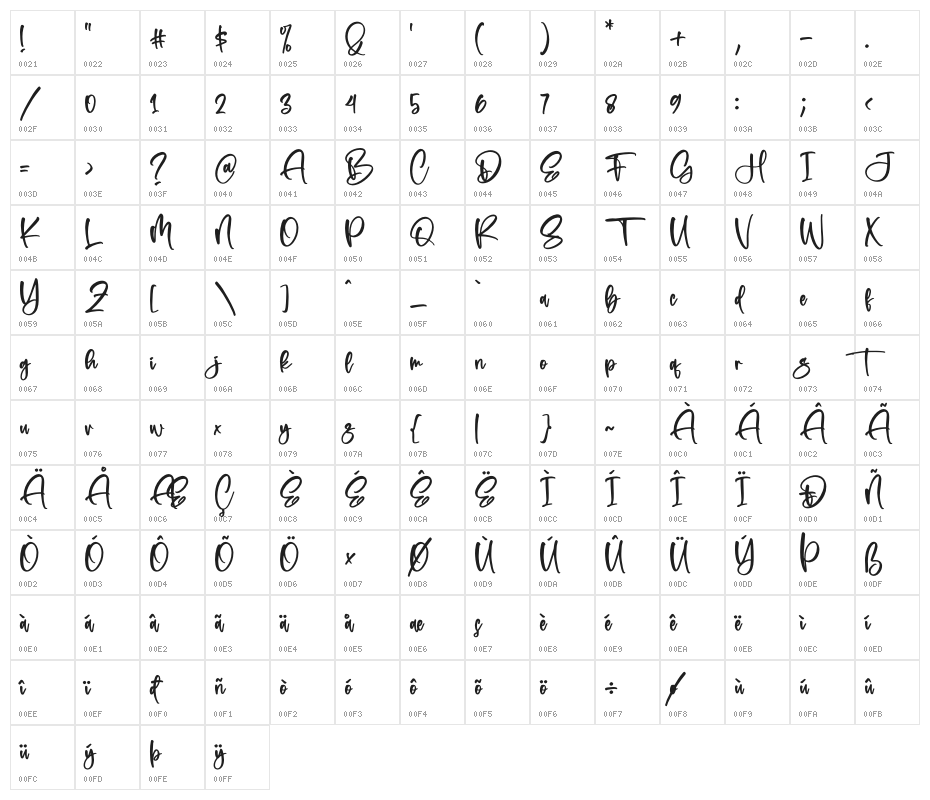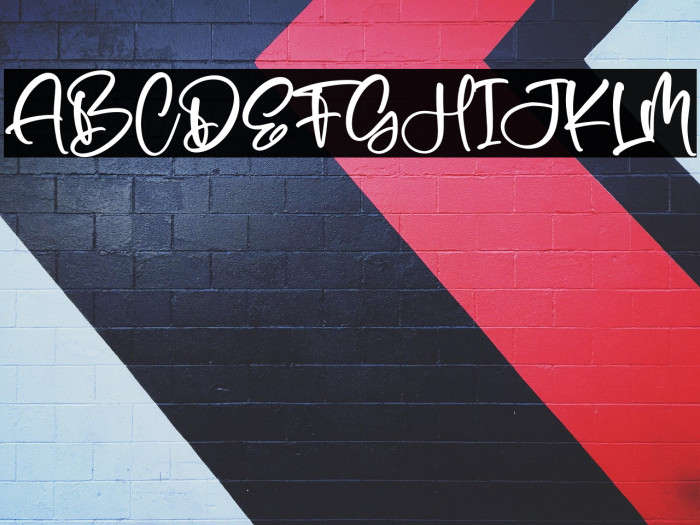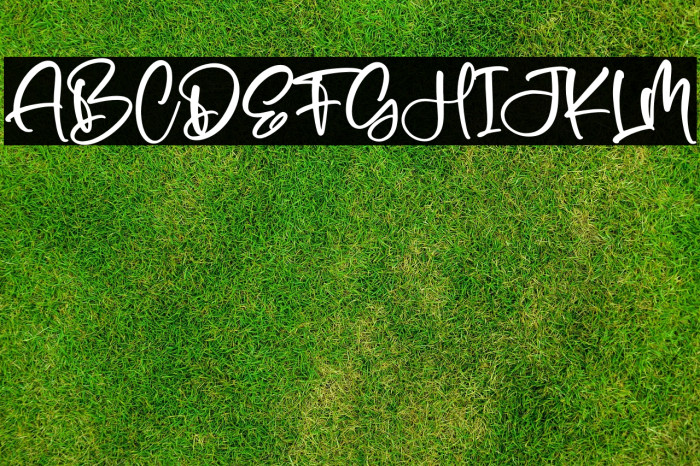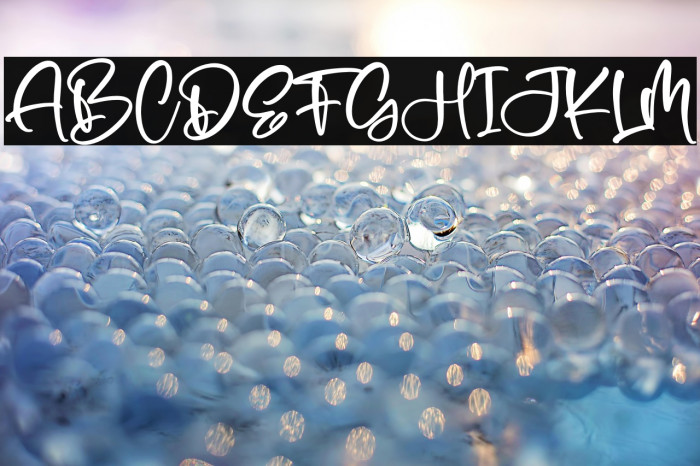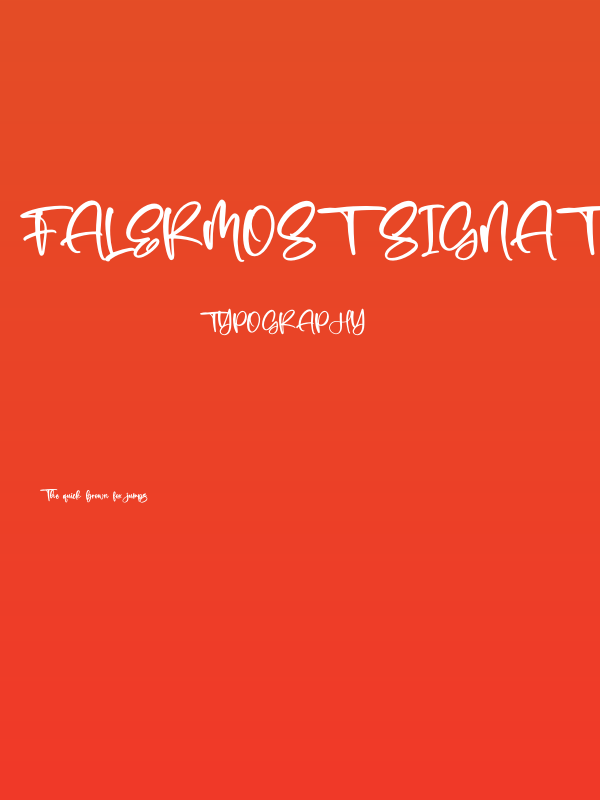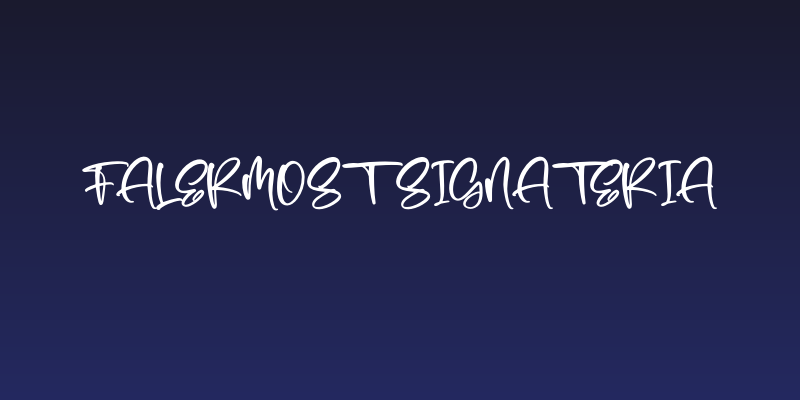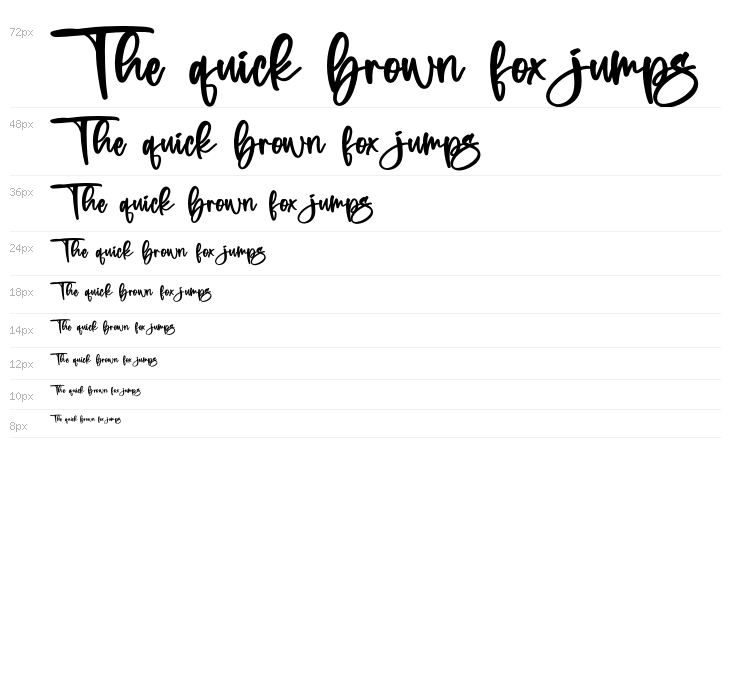
Falermost Signateria Font
Falermost Signateria Description
A bold, handwritten script font with a playful and dynamic style, featuring smooth curves and a casual aesthetic.
| Use Case | Logos, Headlines |
| Proposed Projects | Greeting cards, invitations, logos, and branding. |